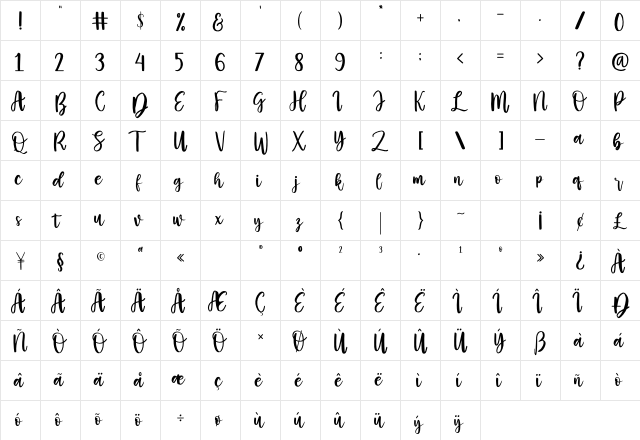
Casey Martin Regular
| Foundry | Ibey Design Studio |
| Designer | Ikrar Bey Khubaib |
Design Context for Casey Martin Typeface
Casey Martin is a composed and adaptable typeface that performs quietly and consistently across a wide range of design contexts.